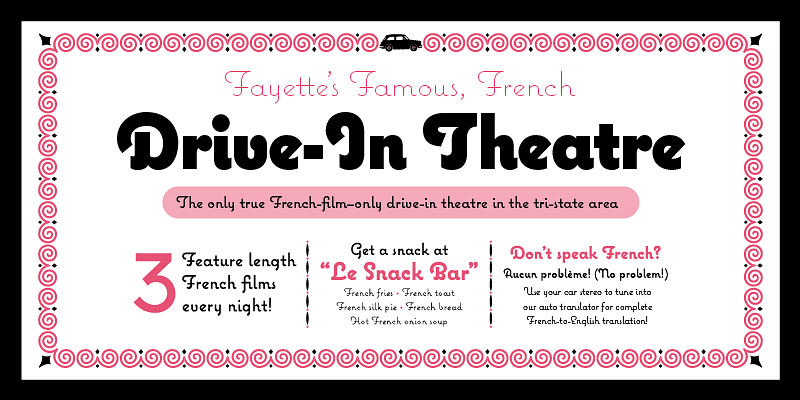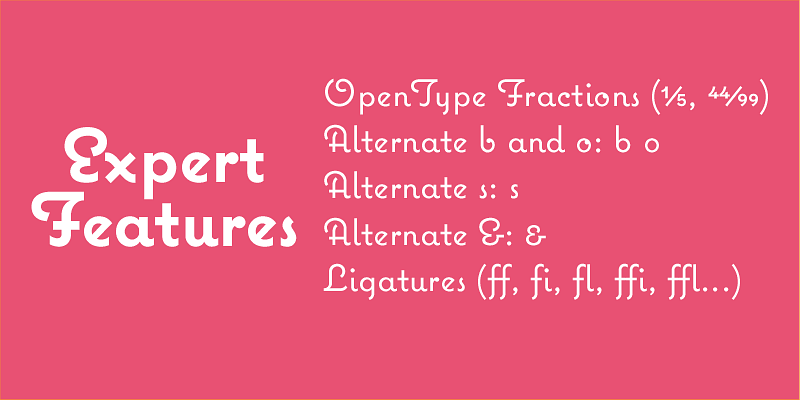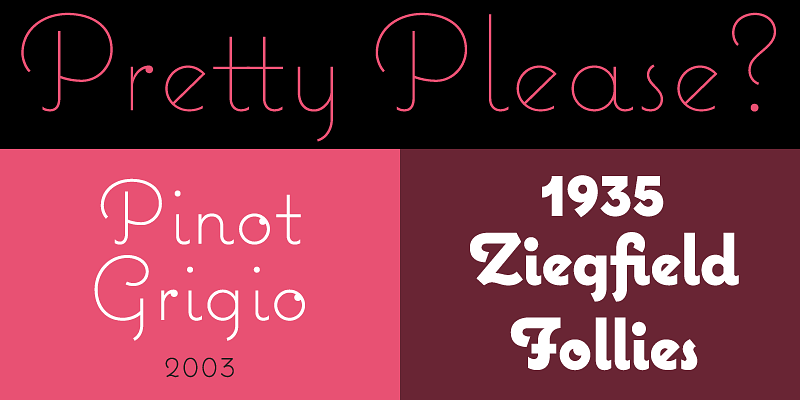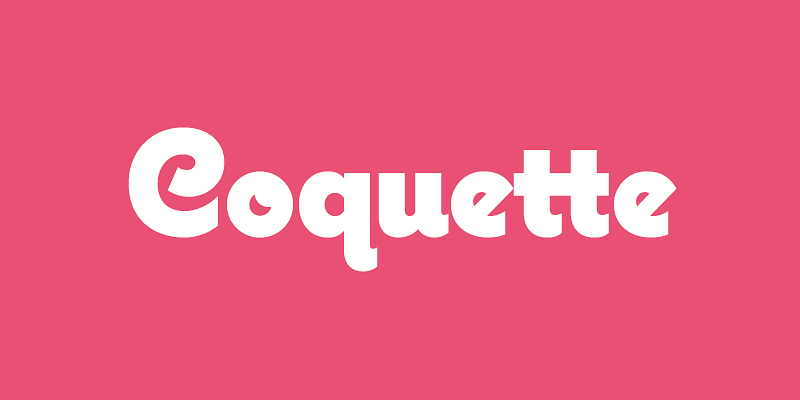
Coquette Font
The Coquette Font is perfect for playful fashion branding, flirtatious beauty campaigns, charming boutique signage, romantic lifestyle blogs, coquettish social media graphics, playful dating app interfaces, feminine cosmetics packaging, charming wedding invitations, flirty Valentine's promotions, and enchanting feminine communications.
What makes the Coquette Font so exciting is its delightful combination of playful charm with flirtatious sophistication that creates an irresistibly captivating typeface perfect for brands seeking to communicate feminine allure and playful elegance. This enchanting typeface features charming letterforms, coquettish character details, and playful design elements that perfectly capture the essence of feminine charm and flirtatious appeal. The font's coquettish personality and charming sophistication make it an exceptional choice for fashion brands, beauty companies, and lifestyle projects seeking to communicate playful femininity, romantic charm, and authentic coquettish appeal with captivating visual allure.
The Coquette Font family includes flirtatious variations and charming alternates, featuring playful styling options, coquettish character sets, and romantic design elements. Each variation maintains the signature charming appeal while offering different levels of flirtatious expression and playful sophistication, giving designers extensive creative possibilities for crafting enchanting communications and coquettish brand personalities that celebrate feminine charm and romantic appeal.
The charming design characteristics of Coquette Font showcase masterful coquettish typography design, with each letter carefully crafted to evoke feminine charm and playful allure while maintaining excellent readability and visual appeal. The font's comprehensive character set includes uppercase and lowercase letters, numerals, romantic punctuation, and charming symbols, ensuring complete functionality for diverse feminine projects and international romantic applications.
Perfectly designed for both digital and print feminine applications, this enchanting font maintains its coquettish character and charming elegance across various sizes and formats. From large-scale fashion displays to intimate romantic communications, Coquette Font adapts beautifully to any charming design challenge while preserving its distinctive flirtatious personality and authentic coquettish appeal.